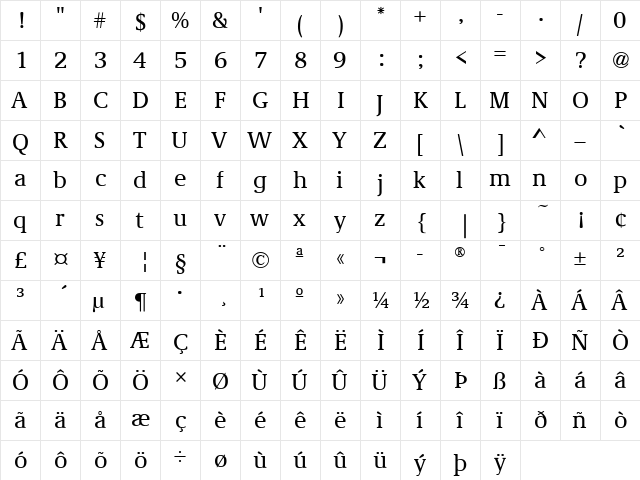
Demos LT Medium Regular
| Foundry | Linotype Library GmbH |
Design Context for Demos LT Medium Typeface
Demos LT Medium is a composed and adaptable typeface that performs quietly and consistently across a wide range of design contexts. The delicate stroke weight brings airiness and refinement to layouts.